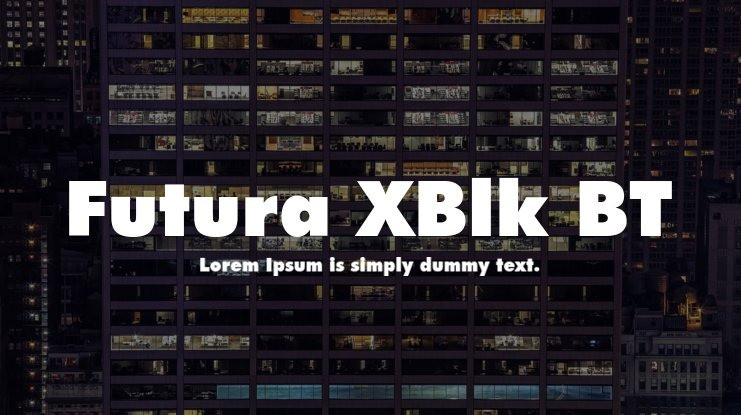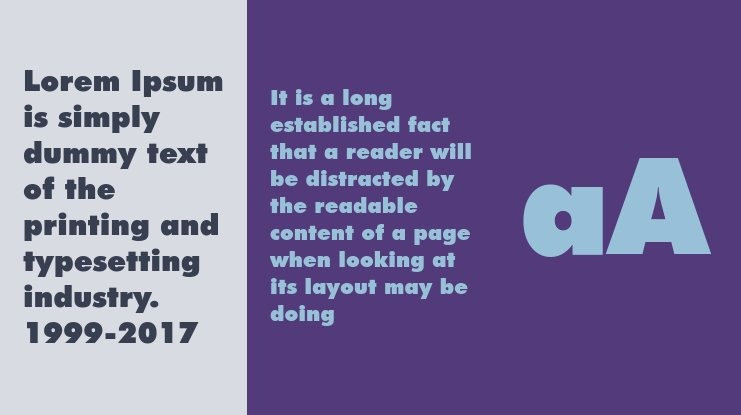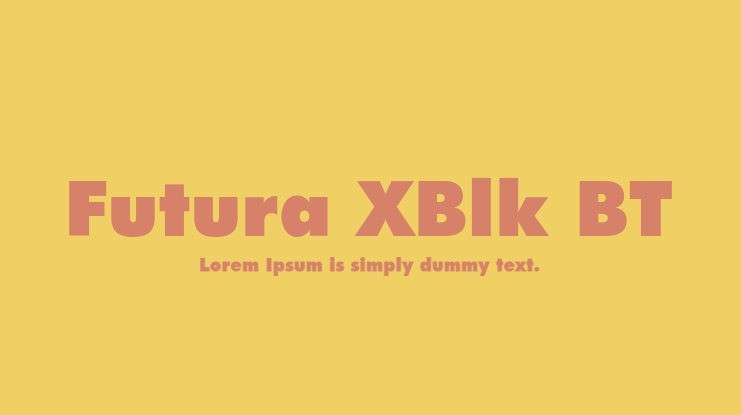
Futura XBlk BT Sans Serif Font Free, Perfectly fit for branding, logo, wedding things, greeting cards, fashion, lookbook, marketing promotion, anytime you want to look fancy elegant but still casual.
Futura XBlk BT Font
futura extra black font